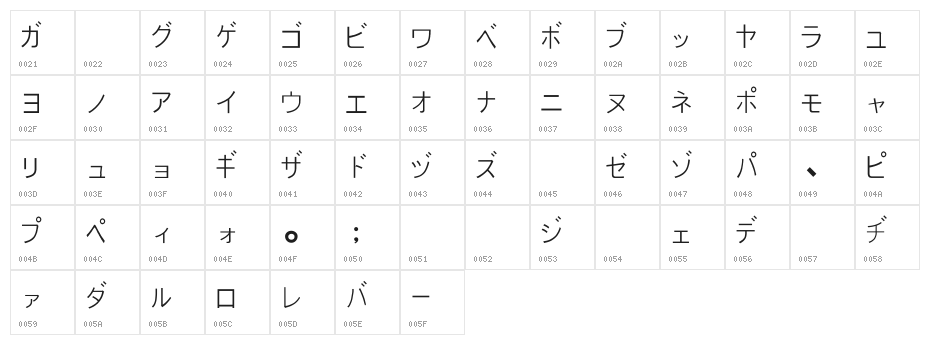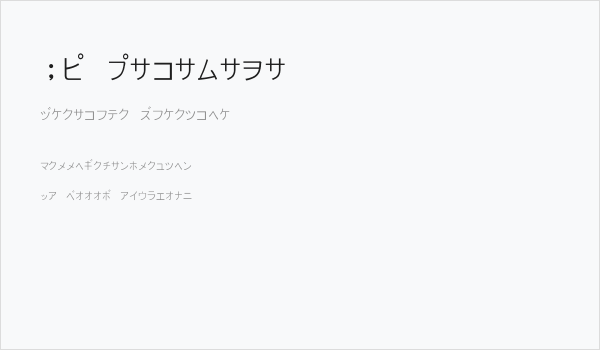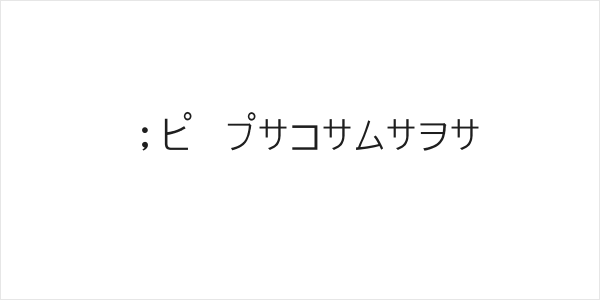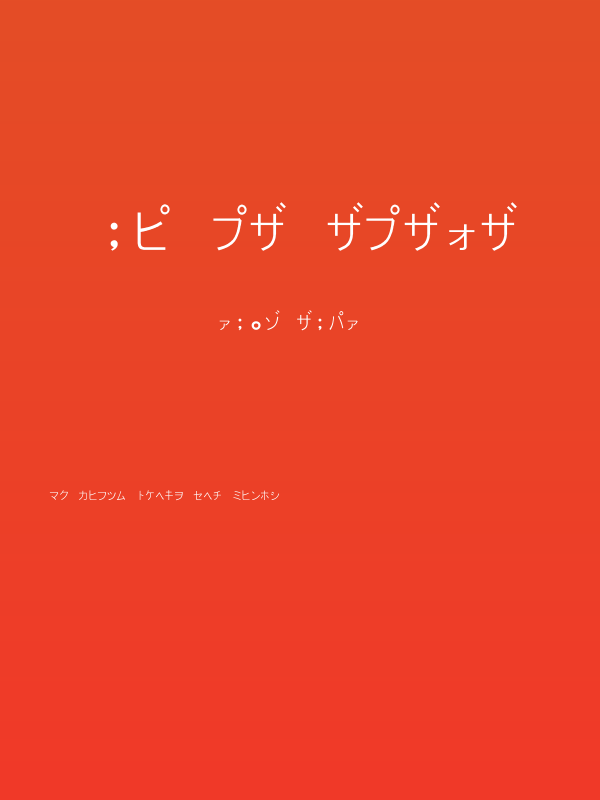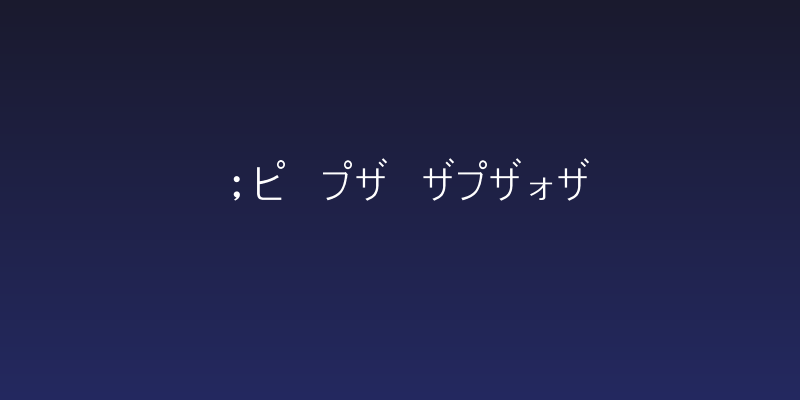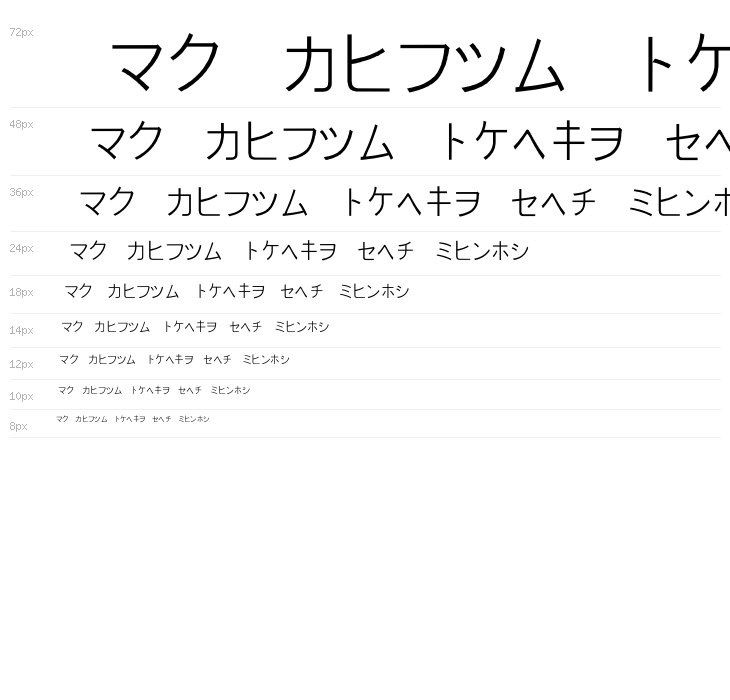
PJ Katakana Font
PJ Katakana Description
This font features a clean and modern design with a focus on clarity and readability. The characters are well-proportioned with a consistent stroke width, giving it a balanced and harmonious appearance. The font includes a full set of Katakana characters, each designed with precision and attention to detail. The strokes are smooth and slightly rounded, which adds a touch of softness to the overall geometric structure. This font is ideal for digital and print media where a contemporary and professional look is desired. Its simplicity and elegance make it versatile for various applications.
| Proposed Projects | Ideal for branding, digital interfaces, educational materials, and signage where clarity and modernity are key. |